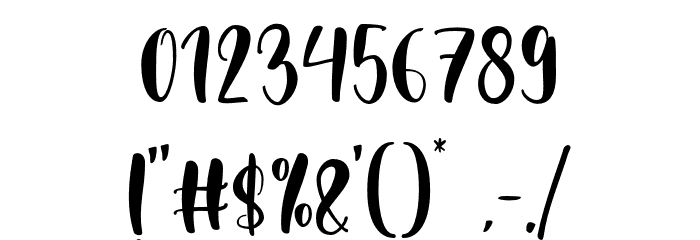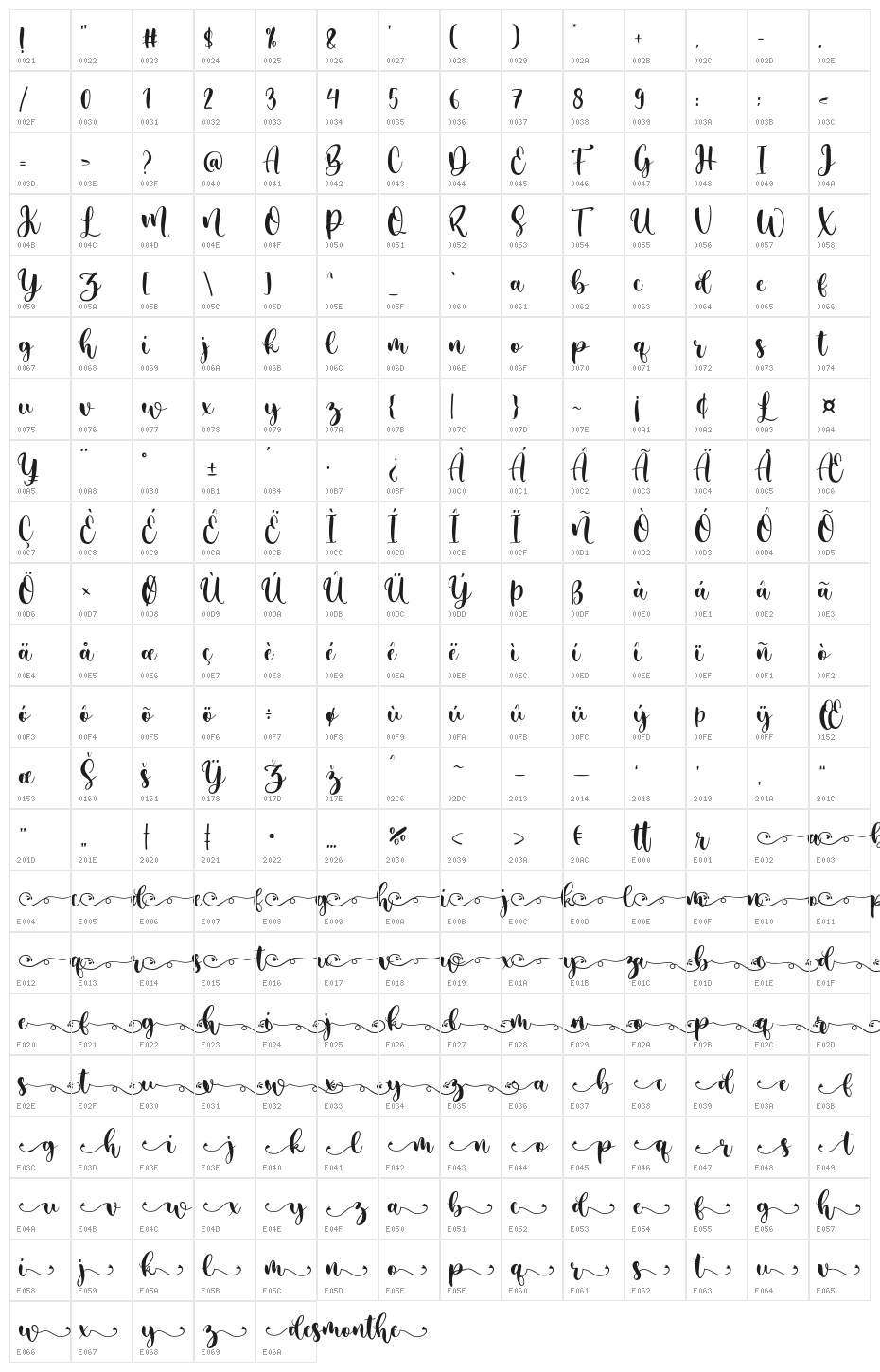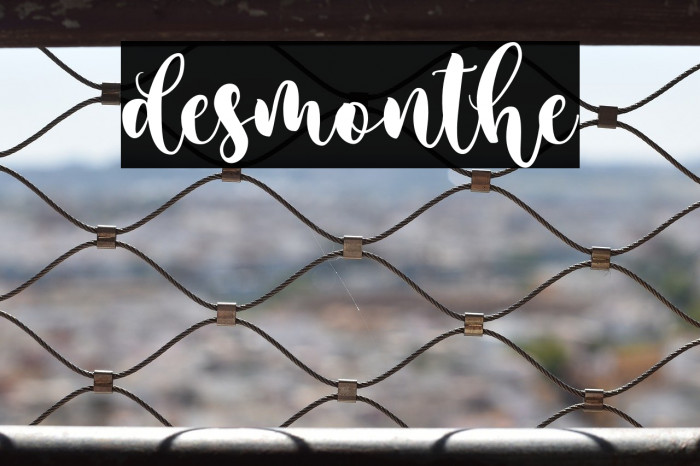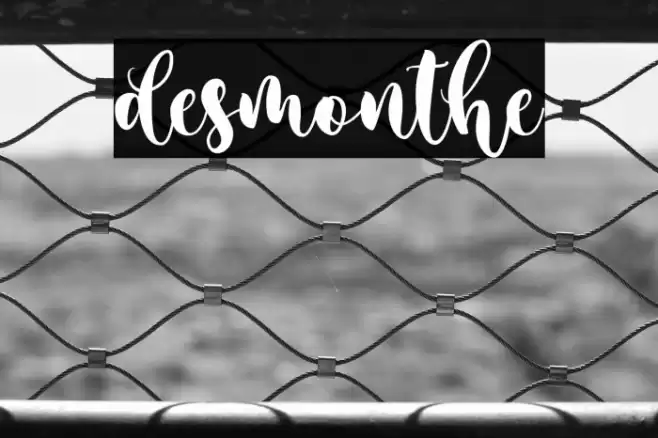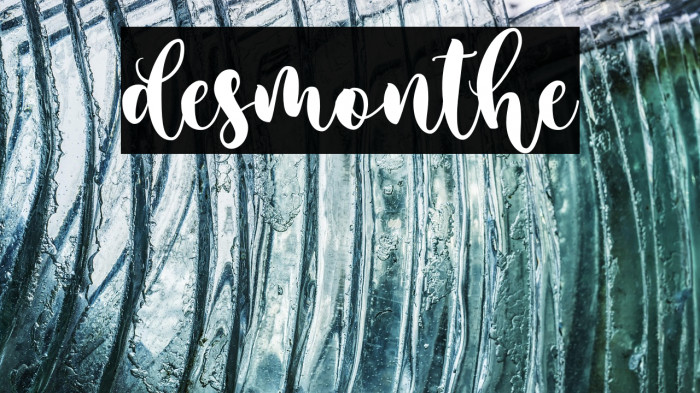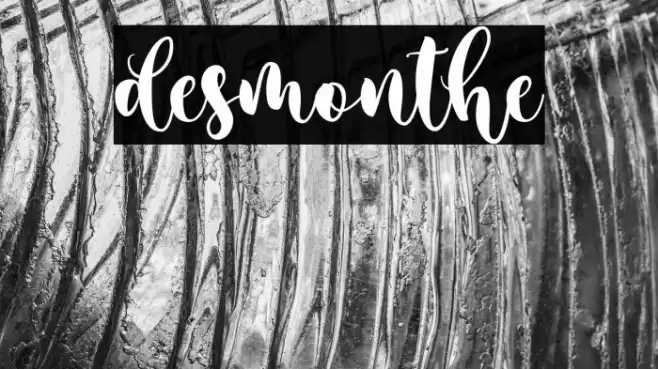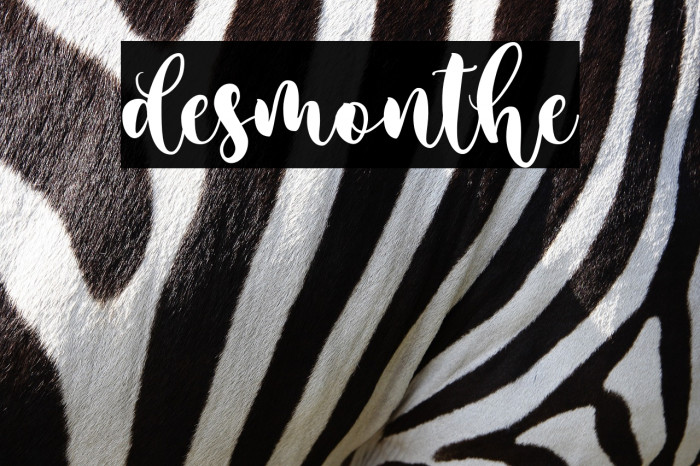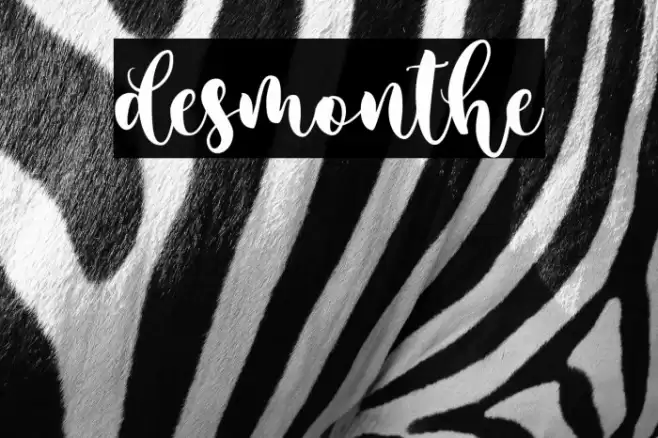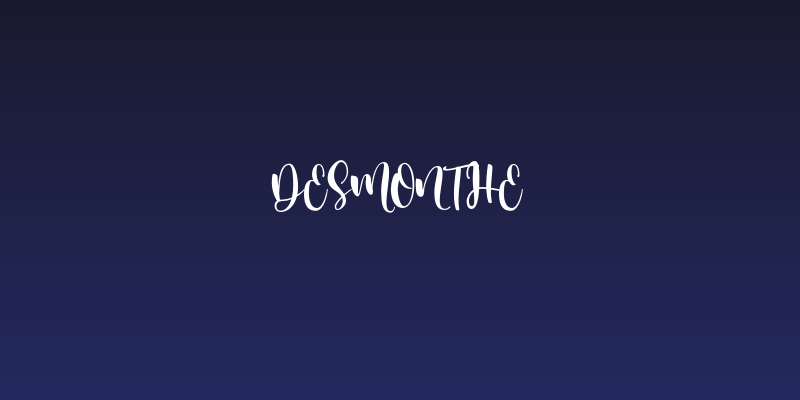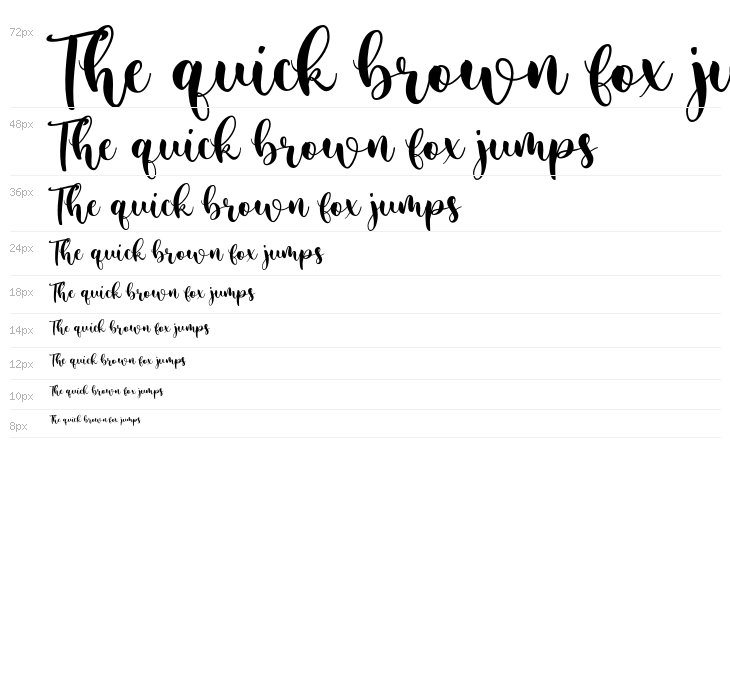
desmonthe Font
desmonthe Description
This font features a bold, flowing script style with a modern and decorative flair. The uppercase letters are elegantly looped and connected, giving a sense of movement and fluidity. The lowercase letters maintain a consistent style, with some characters featuring unique flourishes that add to the overall aesthetic. Numbers and special characters are designed to match the script style, ensuring a cohesive look across all elements. The font's thick strokes and high contrast make it stand out, ideal for capturing attention.